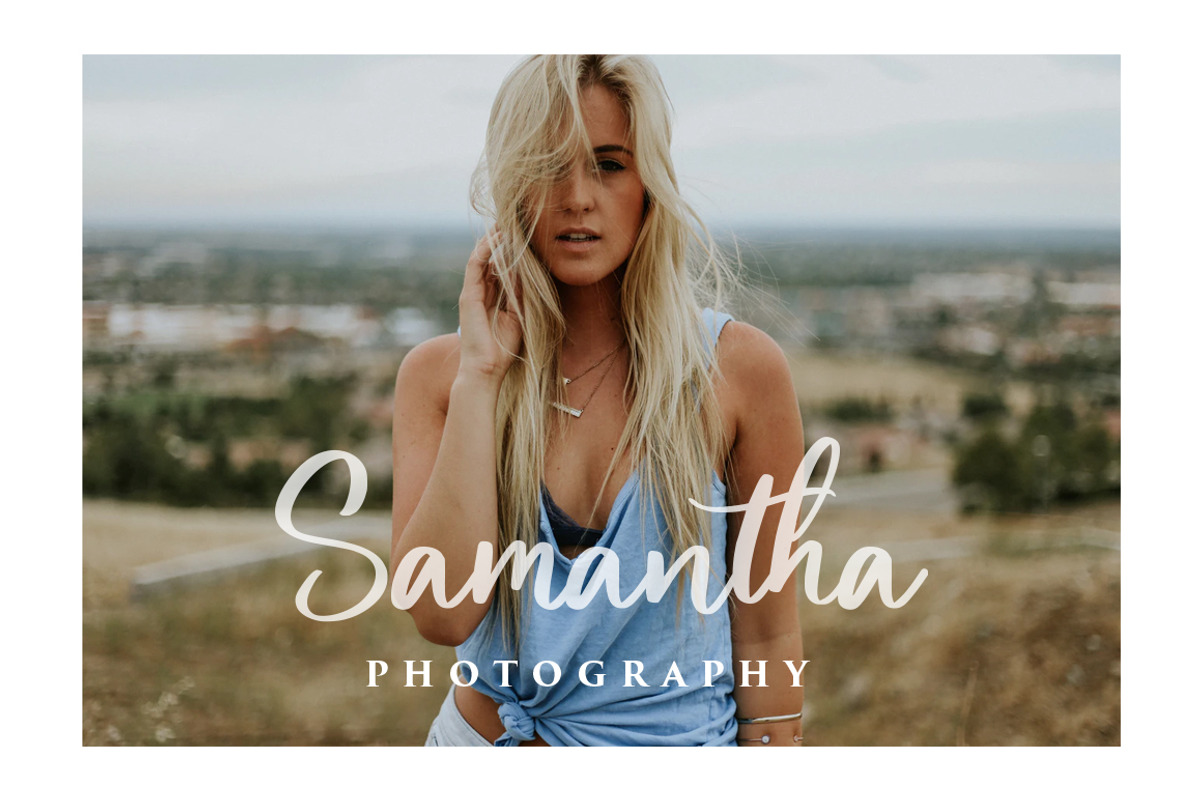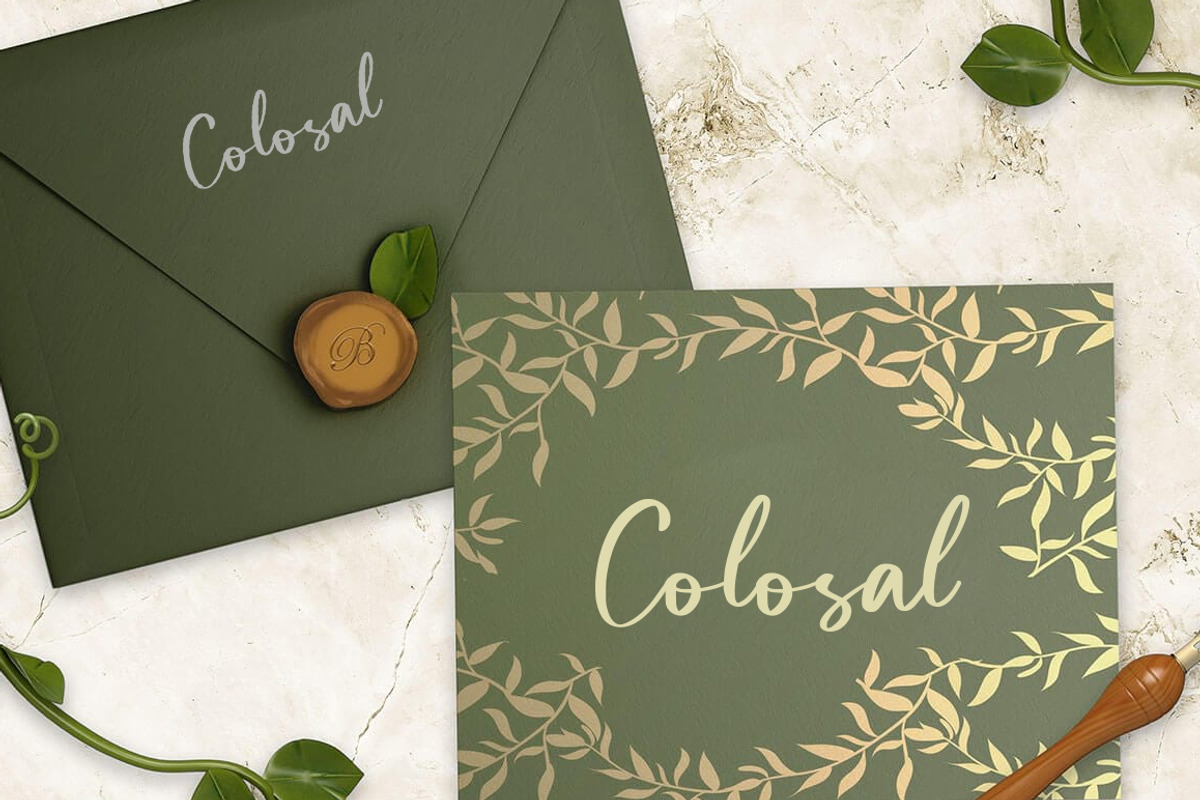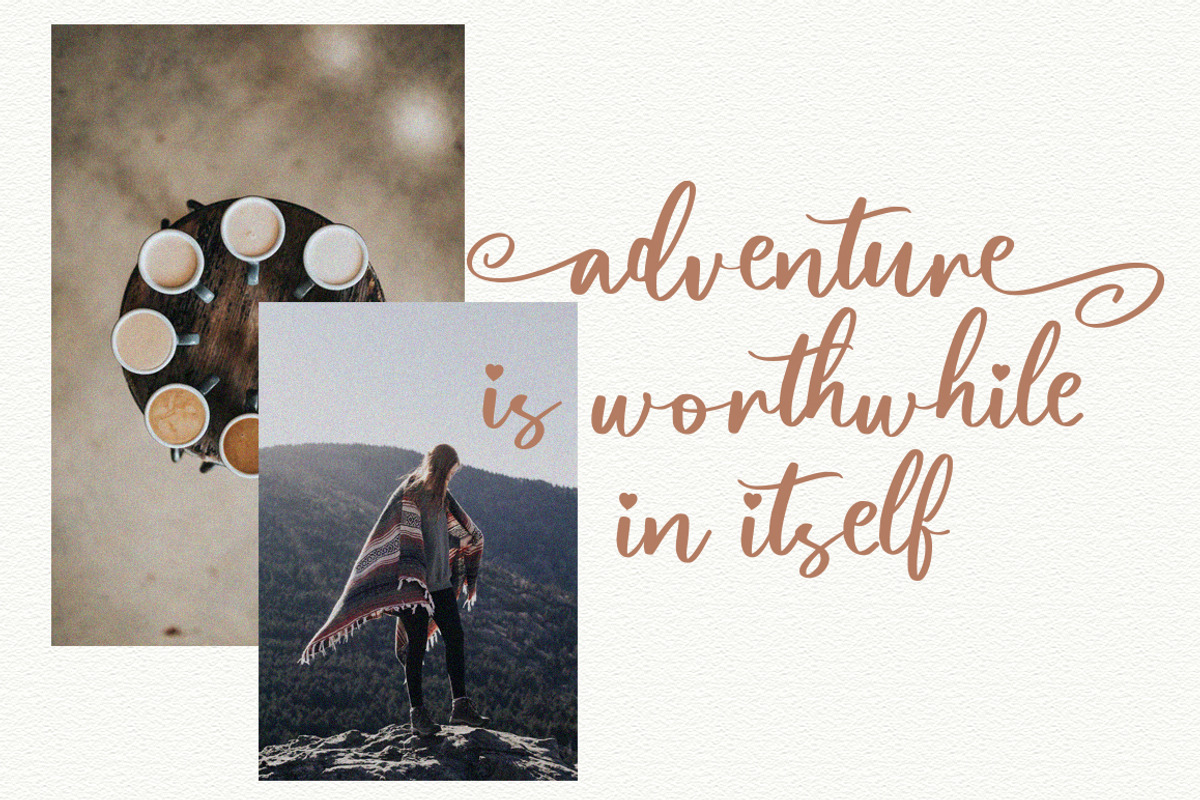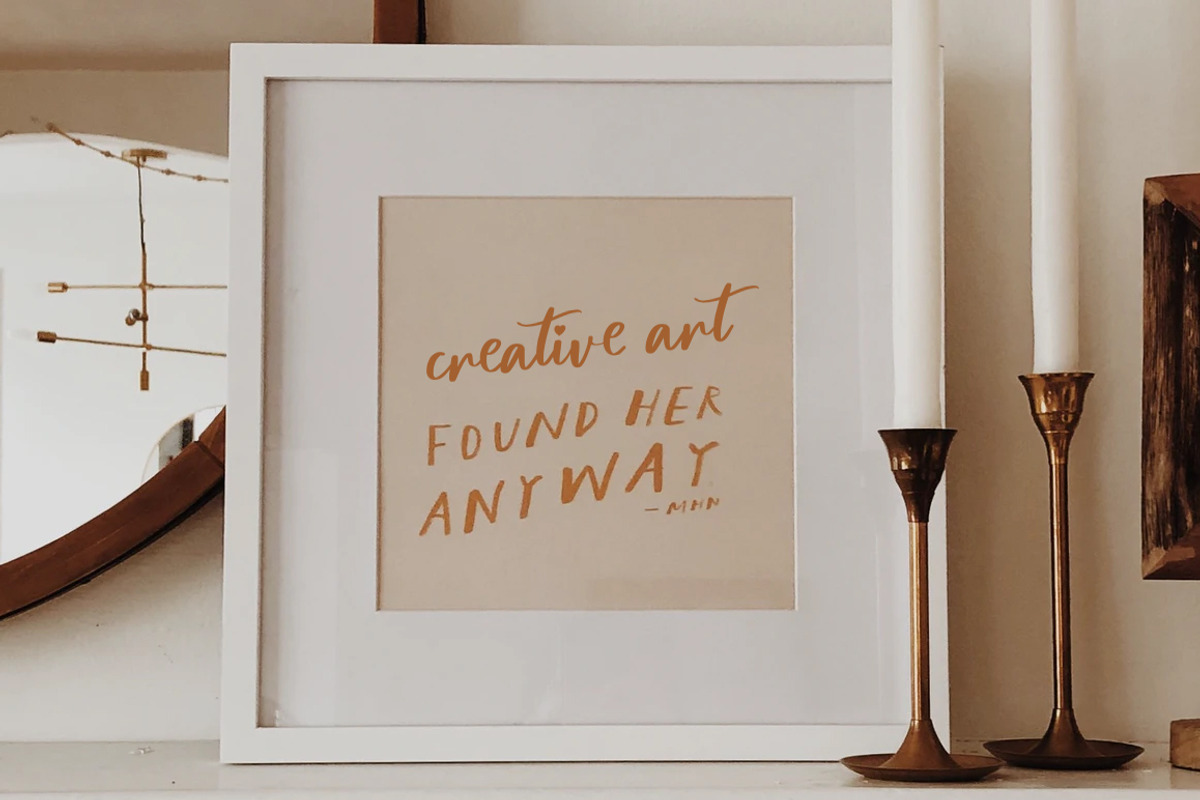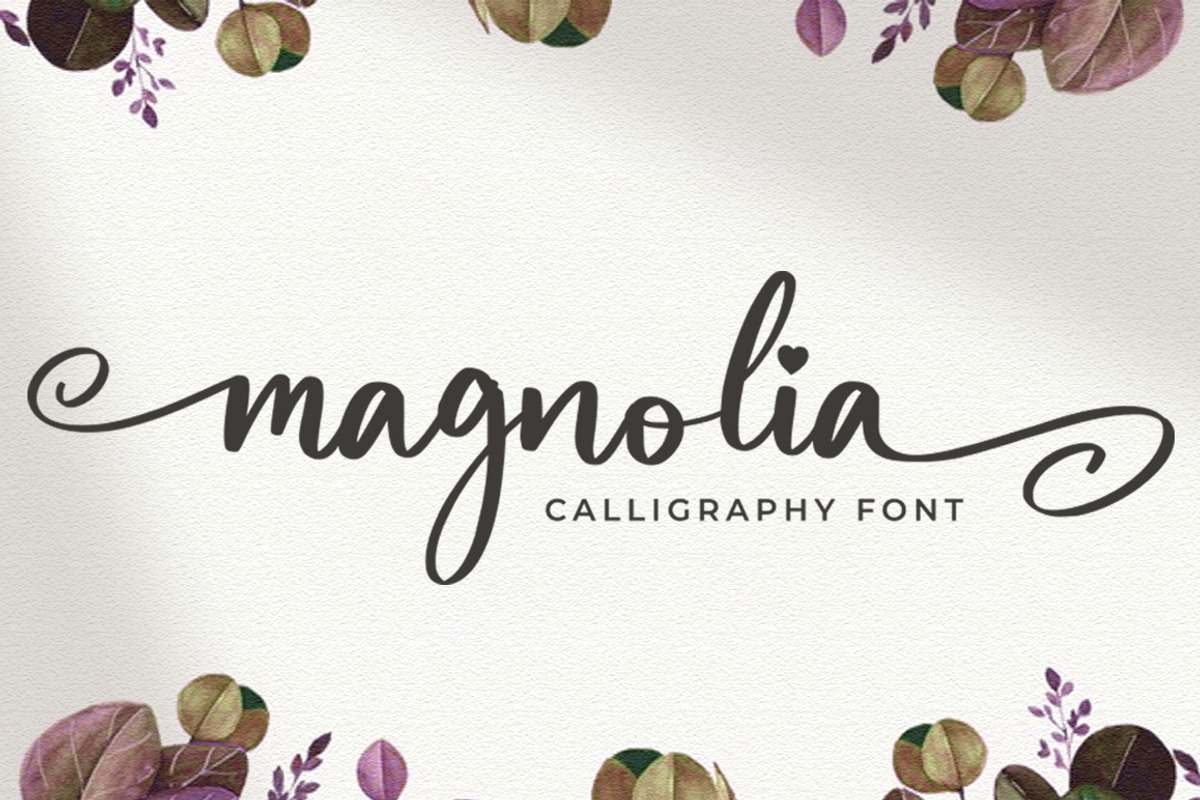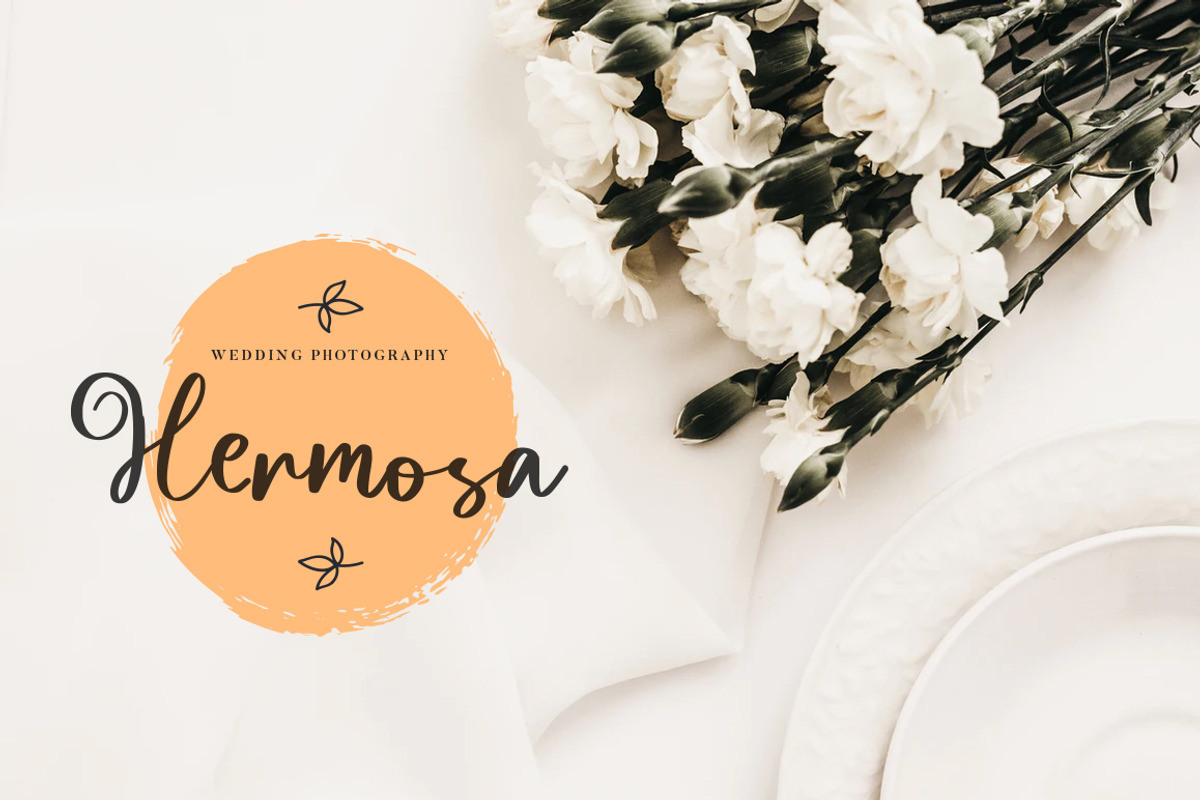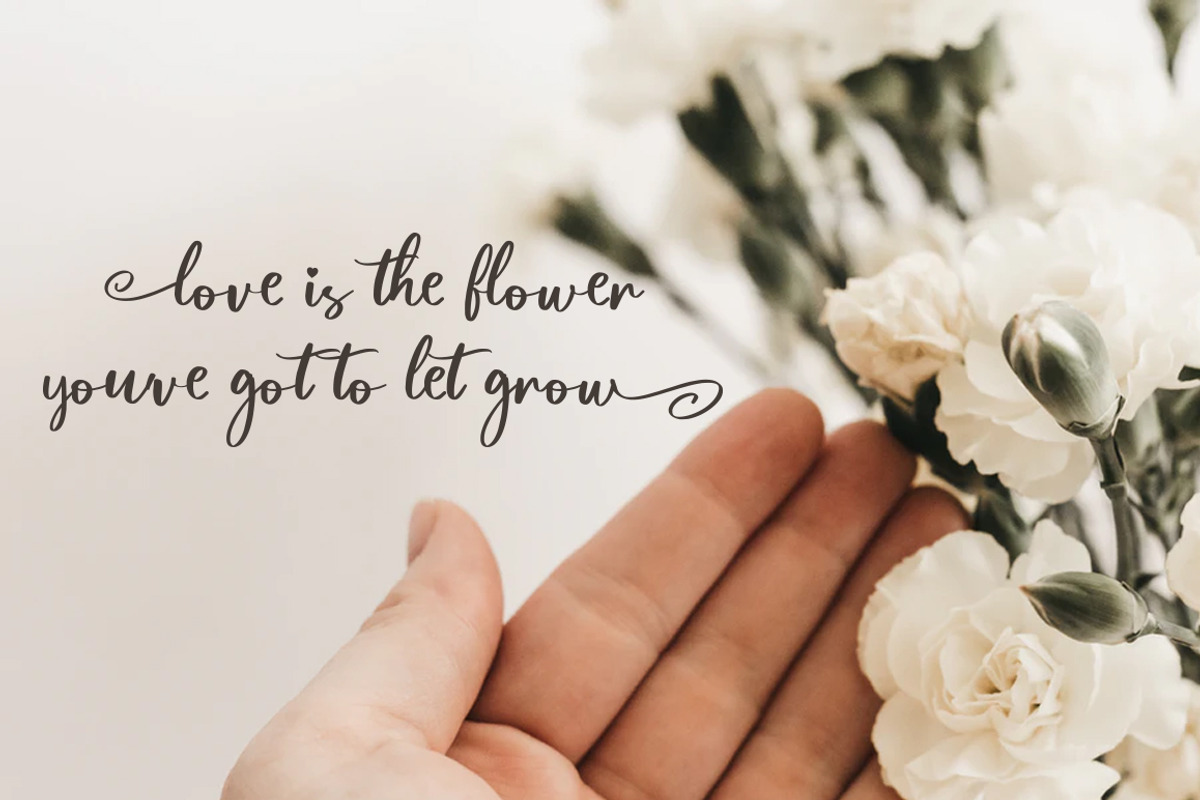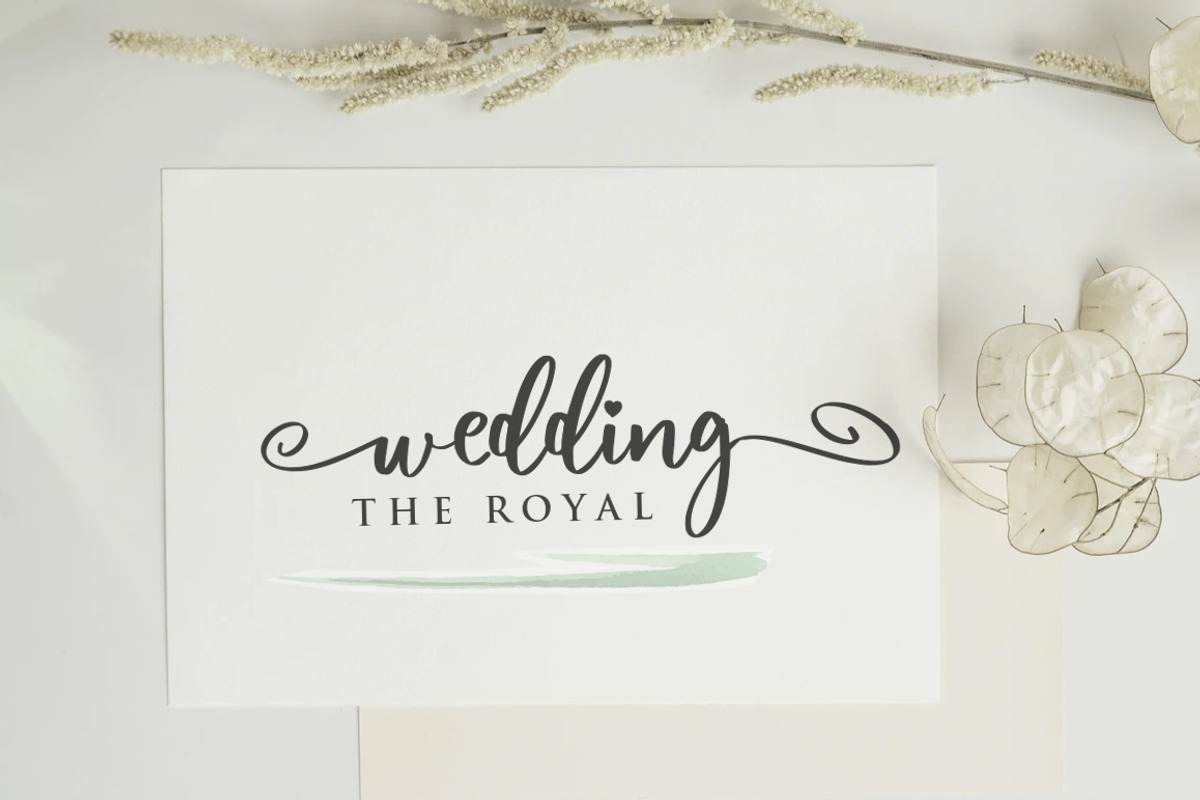
Magnolia Font
Magnolia Font is beautiful script with good flow and unique alternate font.
inspired by a sweet love contemporary handwriting fonts with ligatures and alternative styles ready to add unique look and bloom on your design
It easily cooperating together For Magazine, Movies, or Book Titles. For Photography, Wedding Invitation, Restaurant Menu or T-shirt Design. For Flyers, Banner Ads, web and printing. From Food and Fashion to a Cosmetics product
Why Magnolia Font is worth a look
Magnolia Font by Vultype Co. fits naturally into Branding, posters, packaging, typography.